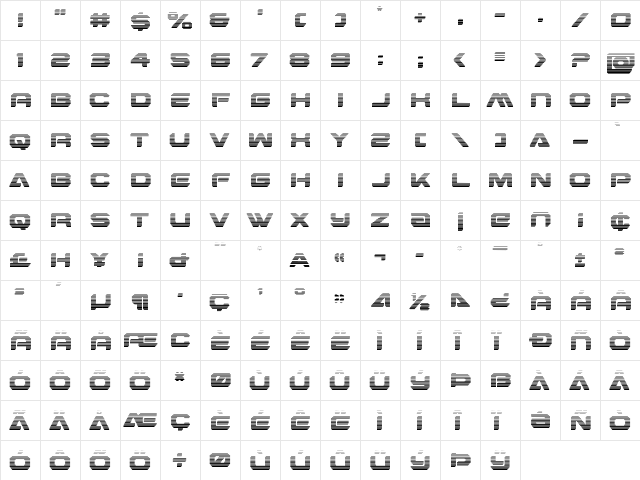
Hyper Viper Gradient Regular
Design Context for Hyper Viper Gradient Typeface
Hyper Viper Gradient is a composed and adaptable typeface that performs quietly and consistently across a wide range of design contexts.